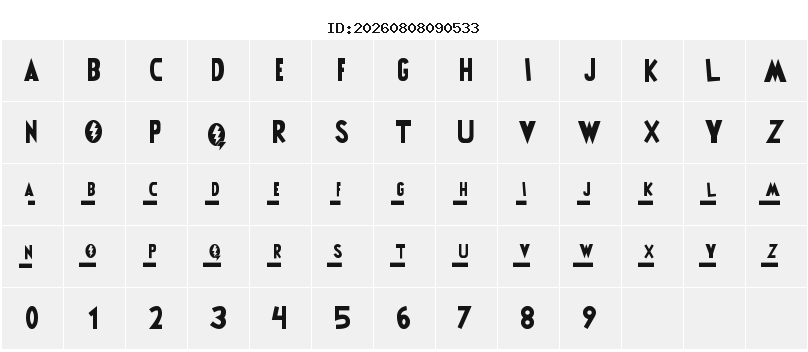
Power Rangers Preview
• Font Name: Power Rangers
• Font ID: Power Rangers:Version 1.00
• Full Font Name: Power Rangers
• Version: Version 1.00 February 18, 2013, initial release
• PostScript Name: PowerRangers
About Power Rangers.ttf
Power Rangers.ttf is a modern, elegant sans-serif font designed for ultimate readability and visual harmony. Perfect for branding, headlines, web design, and print materials.